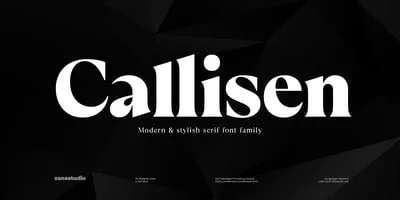
Callisen Font
Callisen Font is perfect for professional consulting firm branding, executive leadership communications, corporate strategy presentations, high-end business consultancy materials, premium service marketing, and sophisticated professional networking platforms. Its distinguished character makes it ideal for management consulting companies, executive coaching services, leadership development organizations, corporate training institutes, and any application requiring authoritative typography that conveys professional expertise, strategic thinking, and the confident leadership essential for business success.
Callisen Font is exciting because it embodies the strategic intelligence and professional authority of executive leadership through precisely crafted letterforms that reflect the clarity of thought and decisive action that define successful business leaders. Its confident proportions and strategic details evoke the boardroom presence and analytical precision required for high-level business decision-making, making it perfect for organizations seeking to convey executive credibility and strategic competence. The font's leadership character transforms communications into statements of professional authority.
Callisen Font family includes executive-level weight variations typically featuring Light, Regular, Medium, Semibold, and Bold options with professional styling that maintains corporate sophistication. The family often incorporates business symbols, leadership icons, and strategic elements designed for professional consulting applications, providing designers with comprehensive tools for creating authentic, leadership-focused typographic compositions.
When selecting executive leadership typography solutions, Callisen Font represents an exceptional choice for professional consulting and corporate projects. This authoritative typeface brings instant executive credibility to any design, making it invaluable for consulting firms, leadership coaches, and corporate training organizations requiring professional typography. Whether you're developing executive consulting branding, creating leadership development materials, or designing corporate strategy presentations, Callisen Font provides the professional authority and strategic sophistication essential for establishing leadership credibility in today's competitive business consulting marketplace.